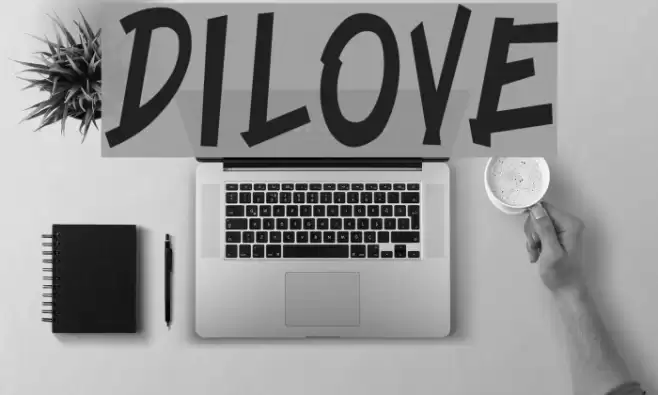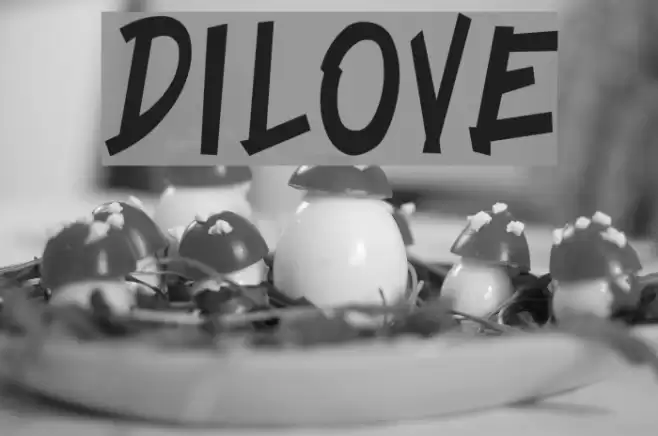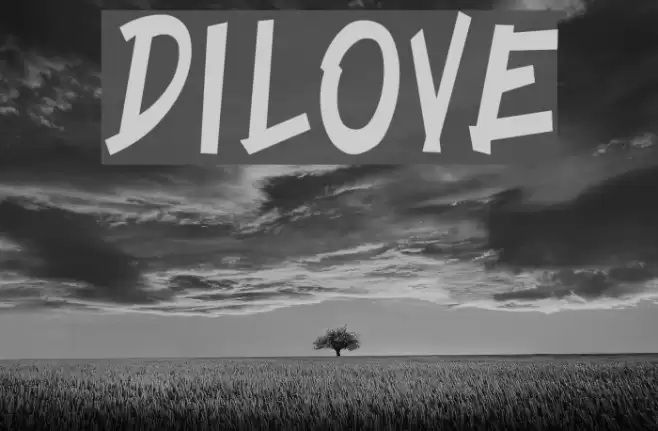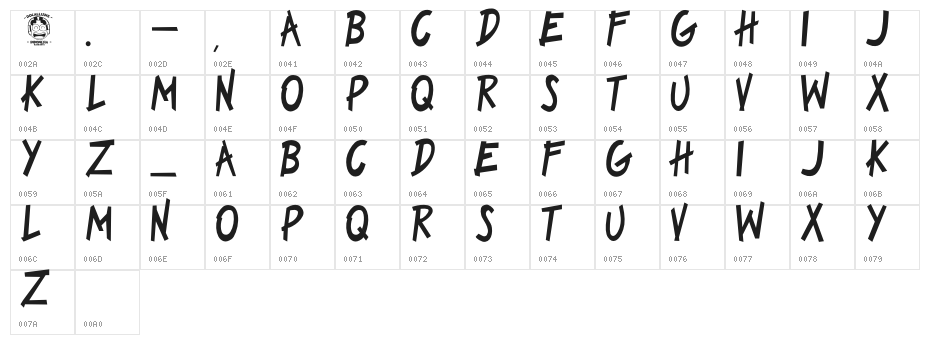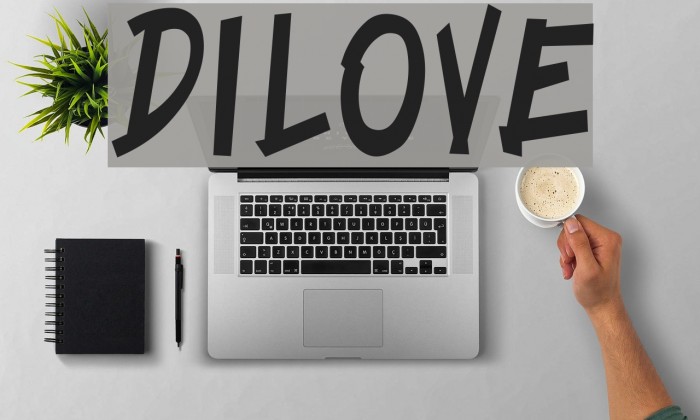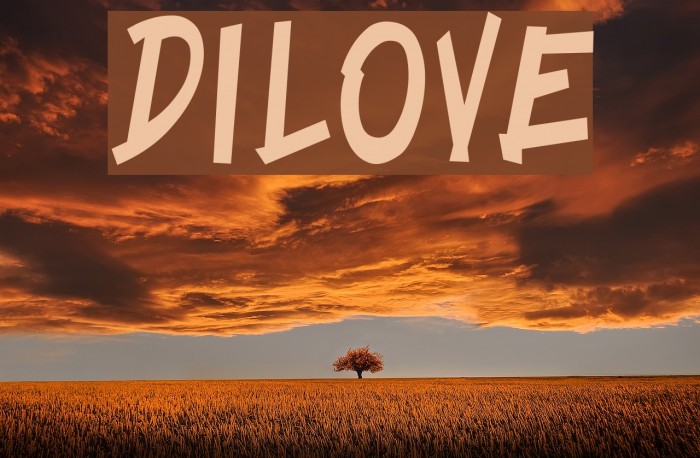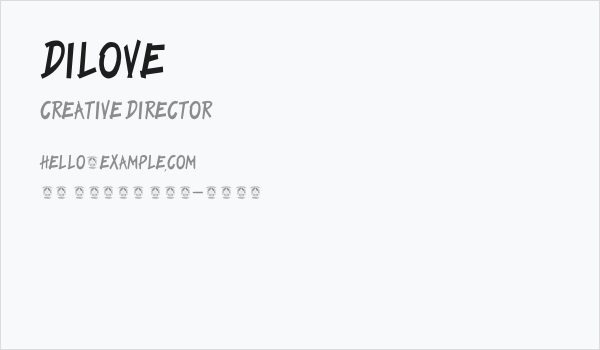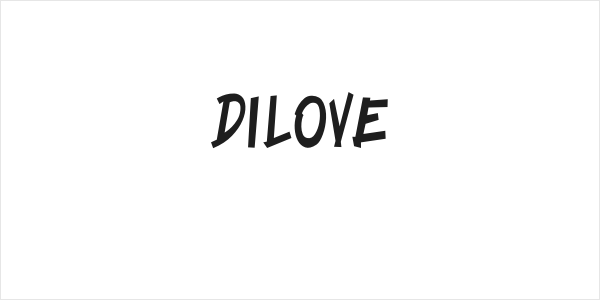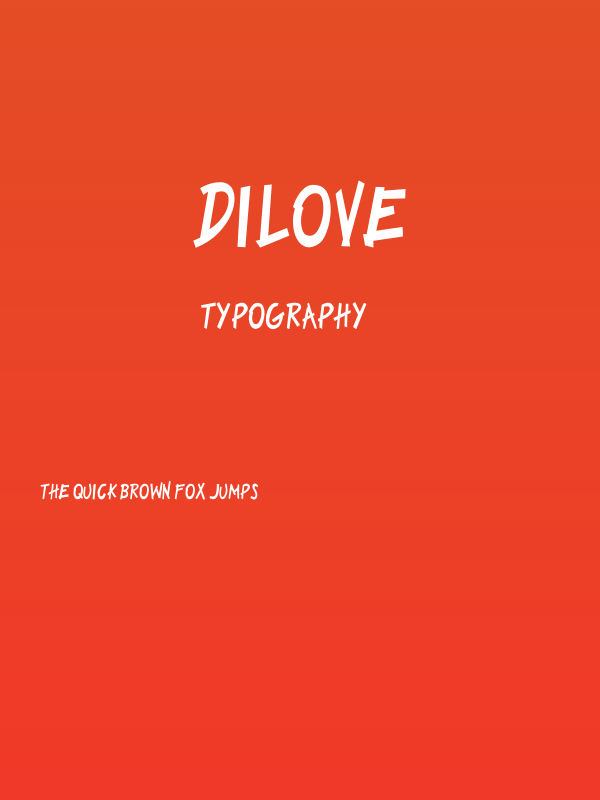
DILOVE Font
DILOVE Description
This font exhibits a playful and dynamic style, characterized by its bold and slightly irregular strokes that give it a hand-drawn appearance. The letters are slightly slanted, adding a sense of movement and energy. The uppercase and lowercase letters maintain a consistent style, with a unique flair in the curves and angles. The numbers and special characters follow the same energetic design, making the font versatile for various creative applications. Its informal and lively nature makes it suitable for projects that require a fun and engaging look.
A playful, hand-drawn style font with bold, energetic strokes from Comic fonts.
- Proposed Projects: Ideal for children's books, comic strips, playful branding, and event posters.